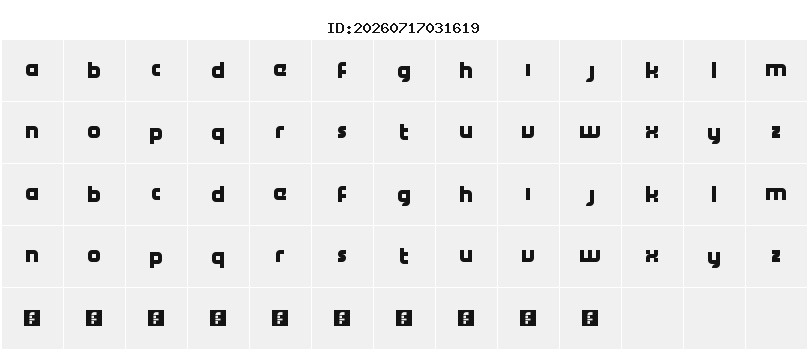
• Font Name: bugis ex mks
• Full Font Name: bugis ex mks Regular
• Designer: triaChlis
• Description: “bugis ex mks” was built with FontStruct
About bugis ex mks.ttf
bugis ex mks.ttf is a modern, elegant sans-serif font designed for ultimate readability and visual harmony. Perfect for branding, headlines, web design, and print materials.